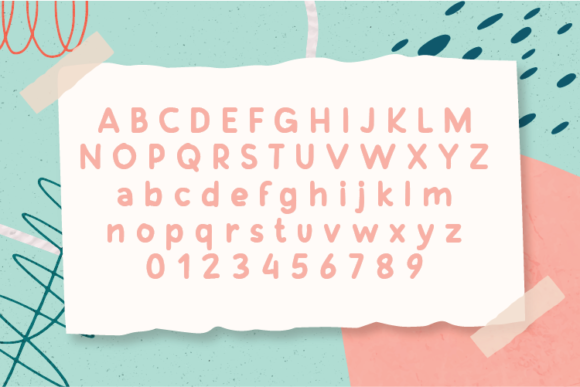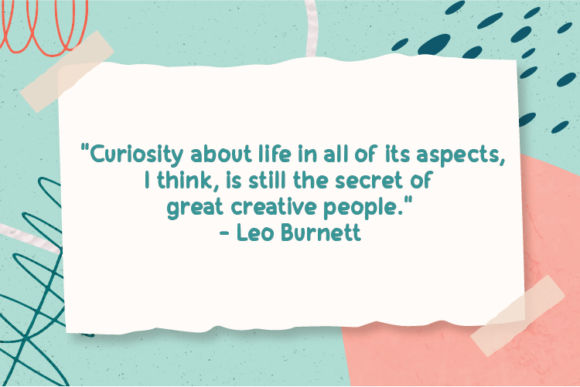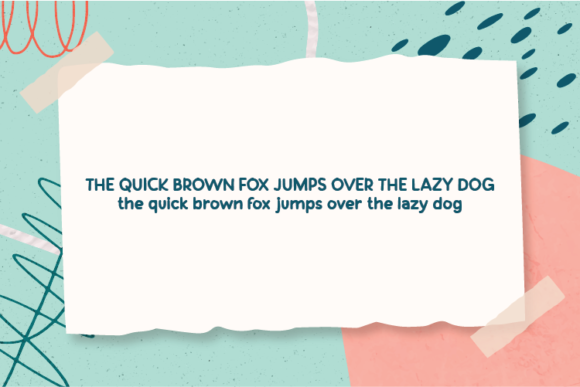
Introduction to Hello Jordan Font
As a designer, there’s nothing quite like the thrill of stumbling upon a unique design resource that sparks a new idea. For me, that moment came when I discovered the Hello Jordan Font. Its natural, hand-drawn feel instantly caught my attention, and I couldn’t wait to explore its possibilities. With its free download and transparent background, this font is perfect for designers looking to add a touch of personality to their creative projects.
The Hello Jordan Font is more than just a pretty face, though – its natural display style makes it a valuable asset for designers who want to add a human touch to their work. Whether you’re designing quotes, notes, or even product packaging, this font is sure to bring a smile to your customers’ faces.
Let’s dive into what makes the Hello Jordan Font so special, and why it’s a must-have in any designer’s toolkit.
Key Features of Hello Jordan Font
- Unique, modern font with a transparent background, perfect for adding a touch of elegance to any design.
- Designed for use in a variety of applications, including logos, branding, and editorial content.
Honest Review: Hello Jordan Font
As a designer, I’m always on the lookout for high-quality design resources that can elevate my creative projects. Recently, I had the chance to try out the Hello Jordan Font, and I’m excited to share my honest review with you.
- The Hello Jordan Font has a beautiful, modern aesthetic that’s perfect for a wide range of creative projects, from logos to brochures.
- The font is highly customizable, allowing you to adjust the size, color, and style to suit your design needs.
- The Hello Jordan Font may not be suitable for very small text, as it can be difficult to read at very small sizes.
Overall, I’m really impressed with the Hello Jordan Font. It’s a high-quality, versatile font that’s perfect for designers of all levels. With its modern aesthetic and customizable features, it’s a fantastic addition to any design resource library. Give it a try and see how it can elevate your next creative project!
Hello Jordan Font
Getting the Most Out of Hello Jordan Font
To get the most out of Hello Jordan Font, use it in combination with other design elements, such as images and graphics, to create a visually appealing design. Experiment with different font sizes, colors, and styles to find the perfect combination for your project.
Common Use Cases for Hello Jordan Font
Hello Jordan Font is commonly used in creative projects, such as graphic design, digital art, and print design. It’s also suitable for use in business presentations, marketing materials, and websites.